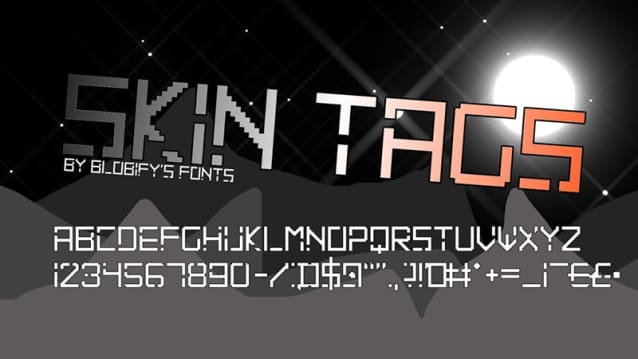
Skin Tags Font is an authentic modern futuristic font that is perfect for professional and product branding needs. This font is suitable for any branding project such as quotes, logos, blog headers, posters, ribbons, letters, invitations, stationery, etc… It is designed to be versatile and flexible that can be used on a variety of projects and mediums. extraordinary in a variety of contexts.
Skin Tags Font
| Designer Name: | Blobify |
| Classification: | Bitmap Pixel Fonts, Display Fonts, Techno / Futuristic Fonts |